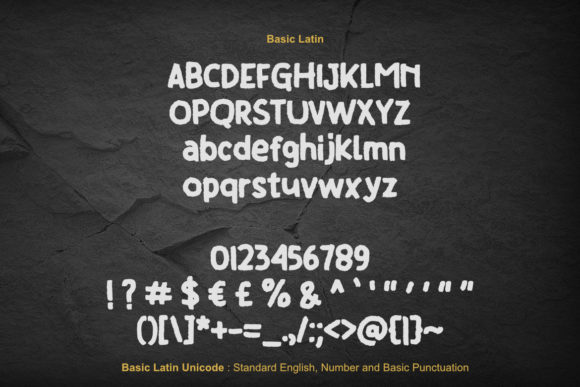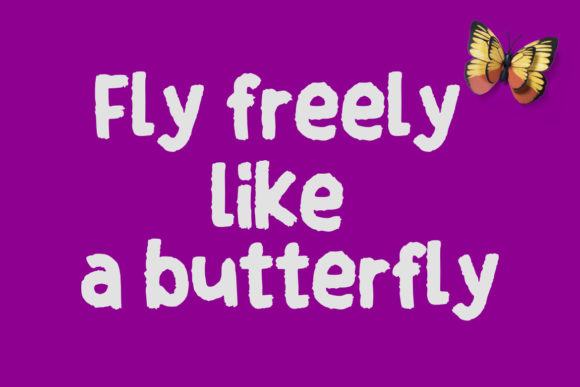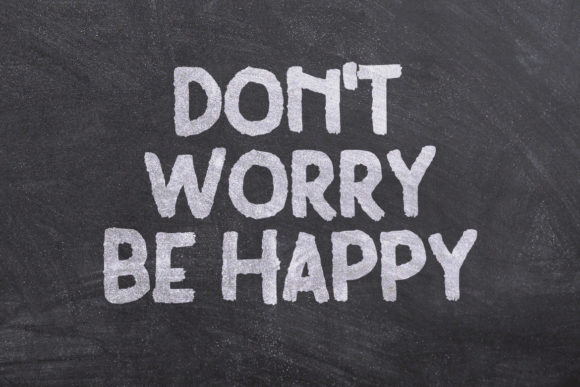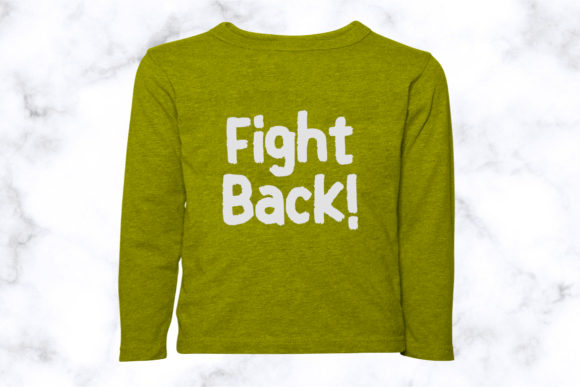
Introduction to Razor Font
Razor is an authentic and rough sans serif with a clean feel.
Use it to turn any design idea into a standout .
Key Features of Razor Font